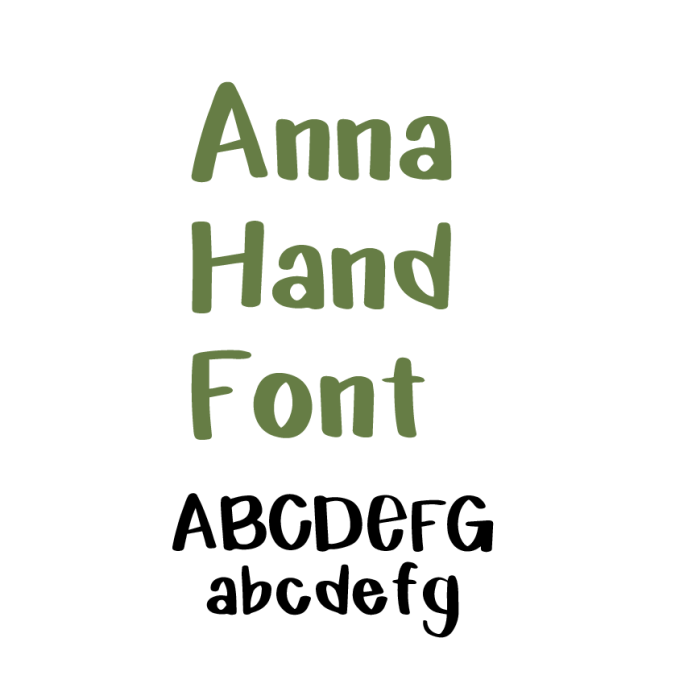
Add a personal touch to your projects with Anna Hand Font! This charming handwritten font brings warmth and character to every design with its natural, flowing style. Perfect for invitations, greeting cards, home decor, and more, Anna Hand Font adds a sense of authenticity and creativity to your work. Ideal for use in Silhouette Studio, this versatile font is easy to incorporate into all your crafting projects. Whether you're designing for casual or elegant occasions, this delightful font is sure to make your creations stand out.